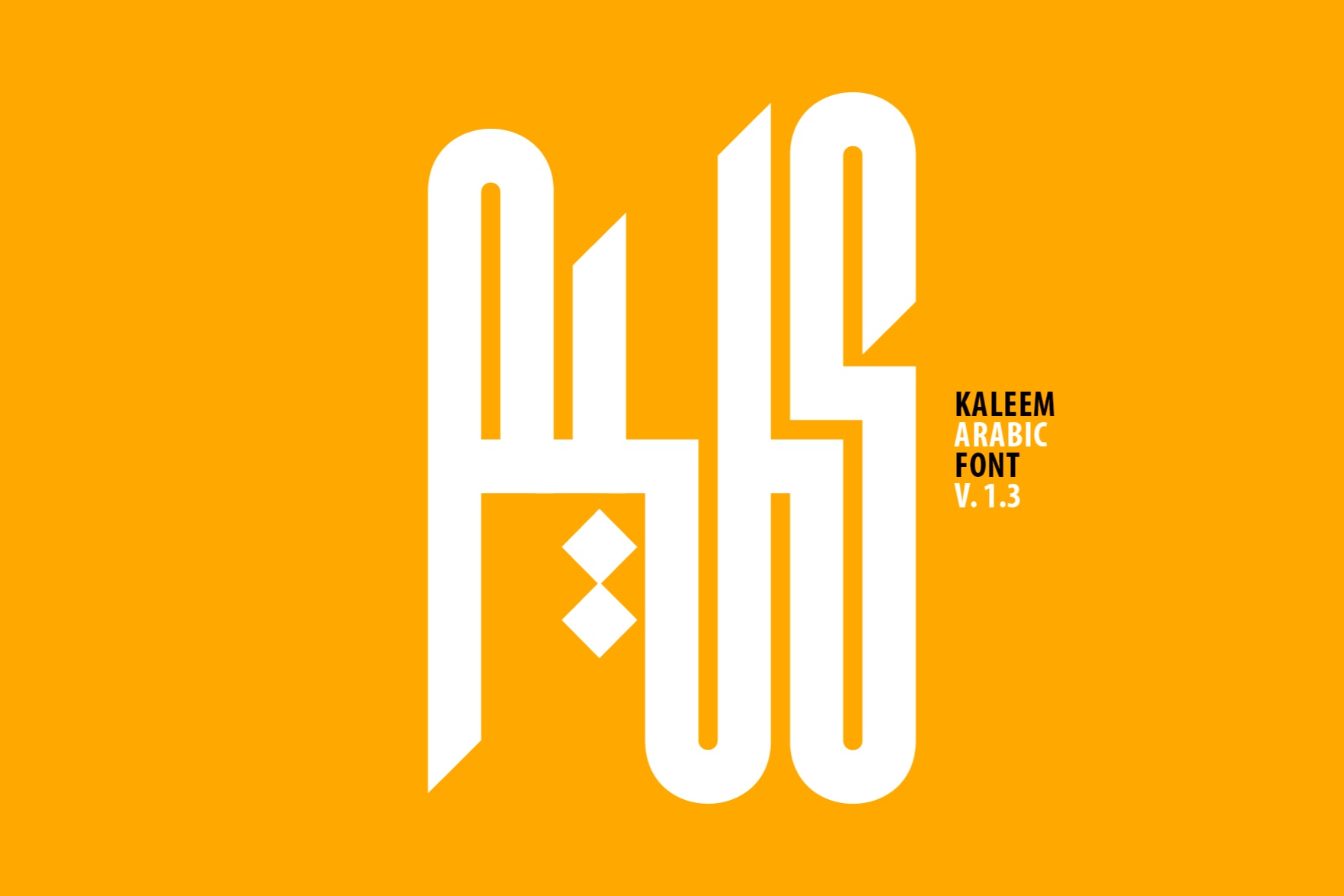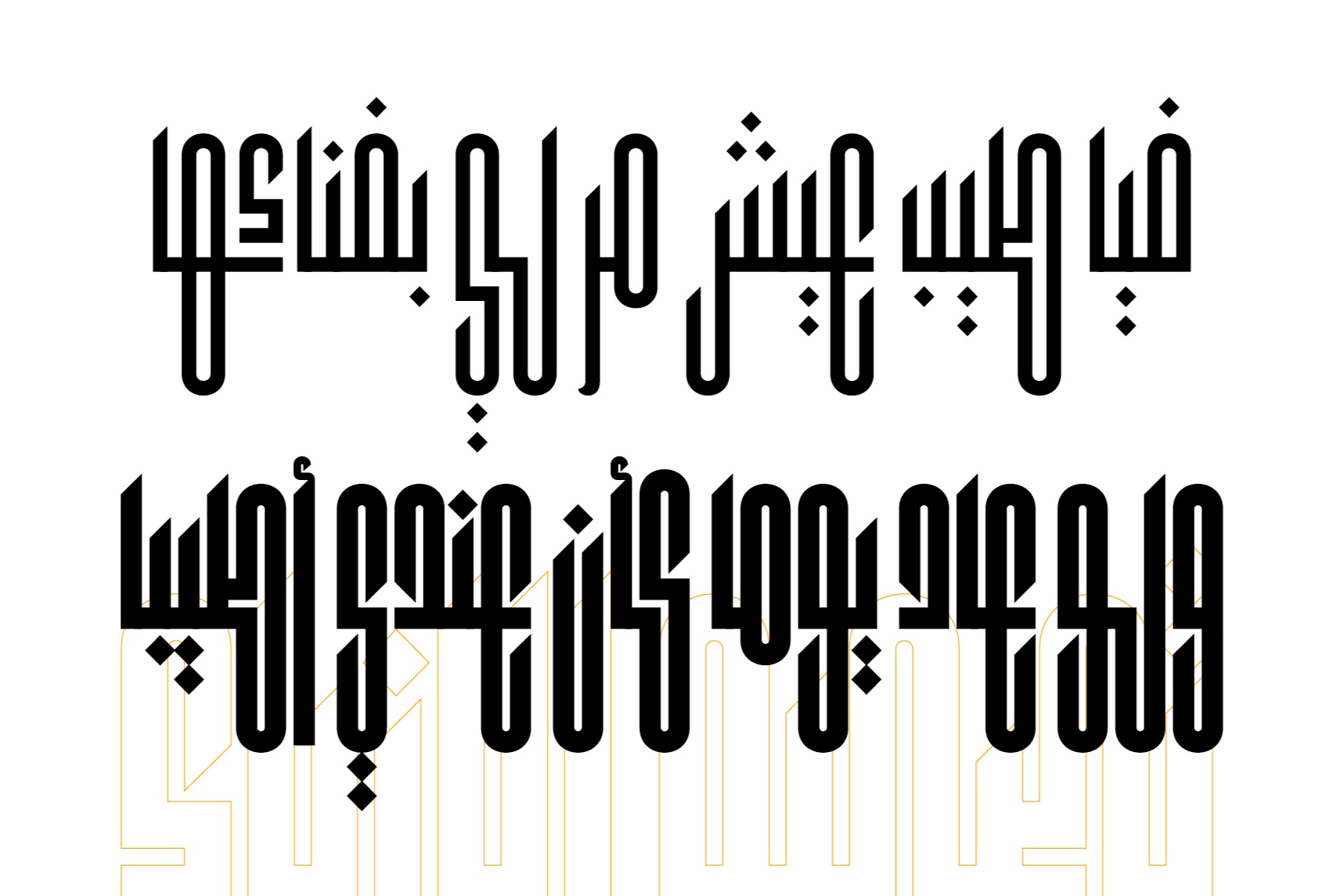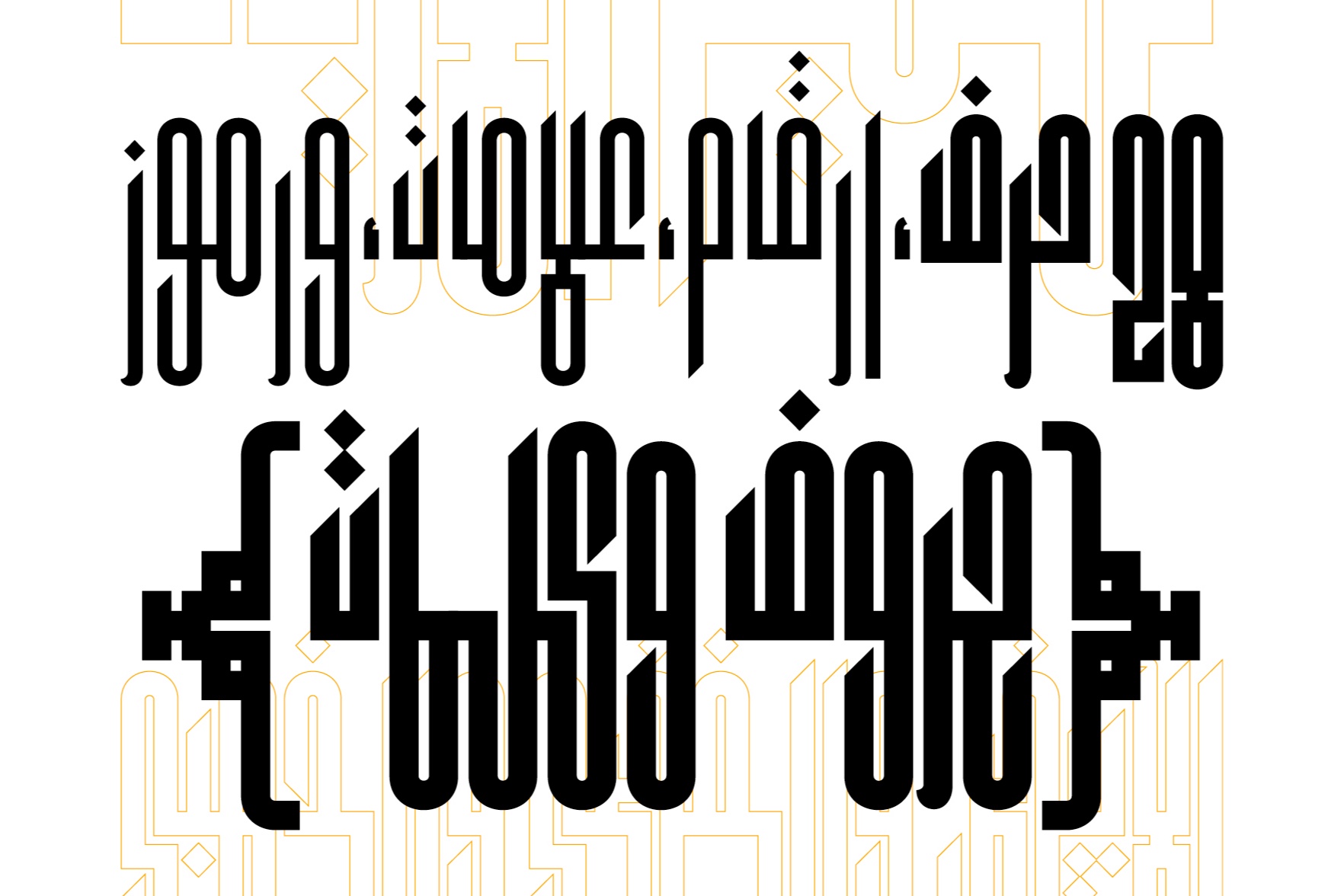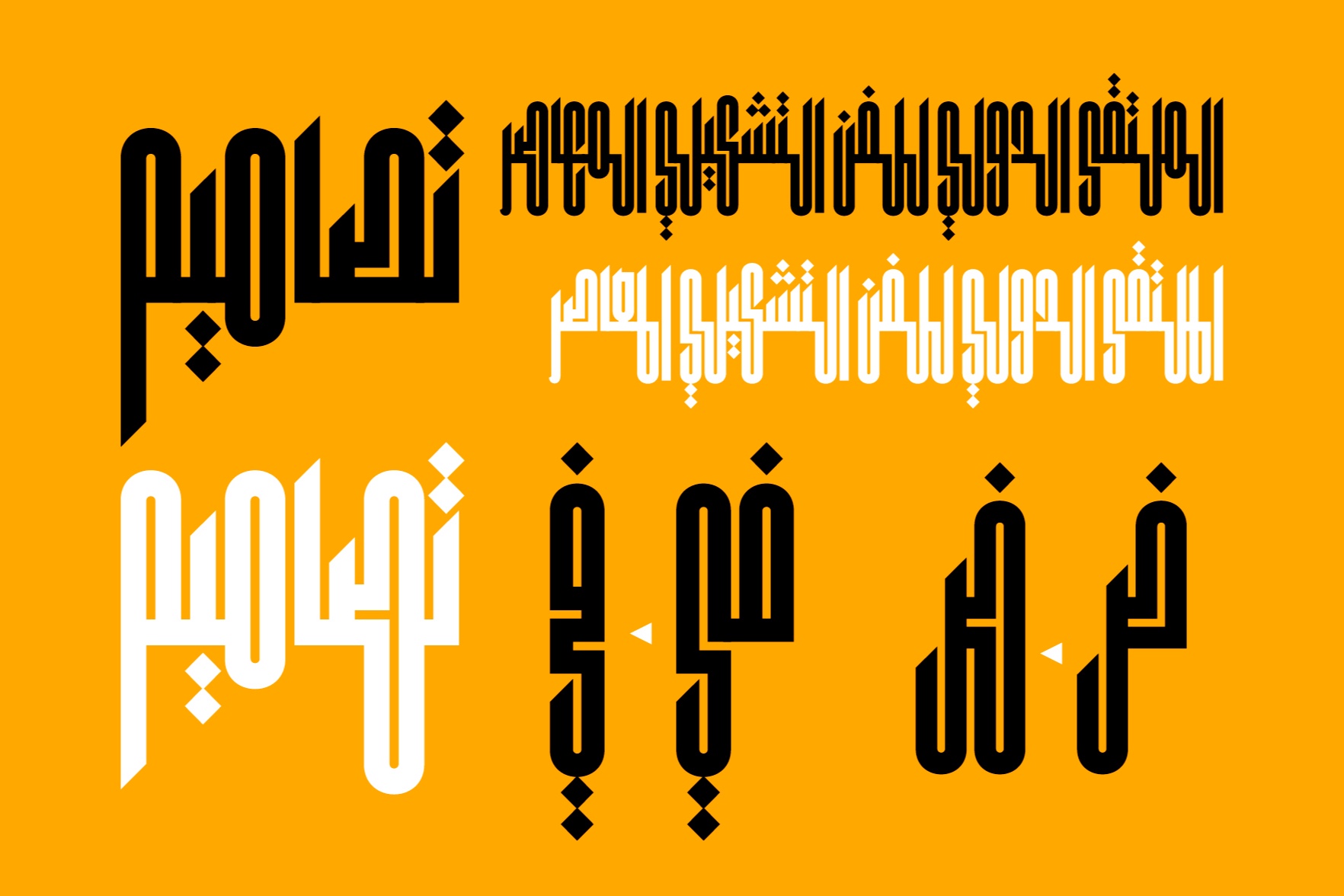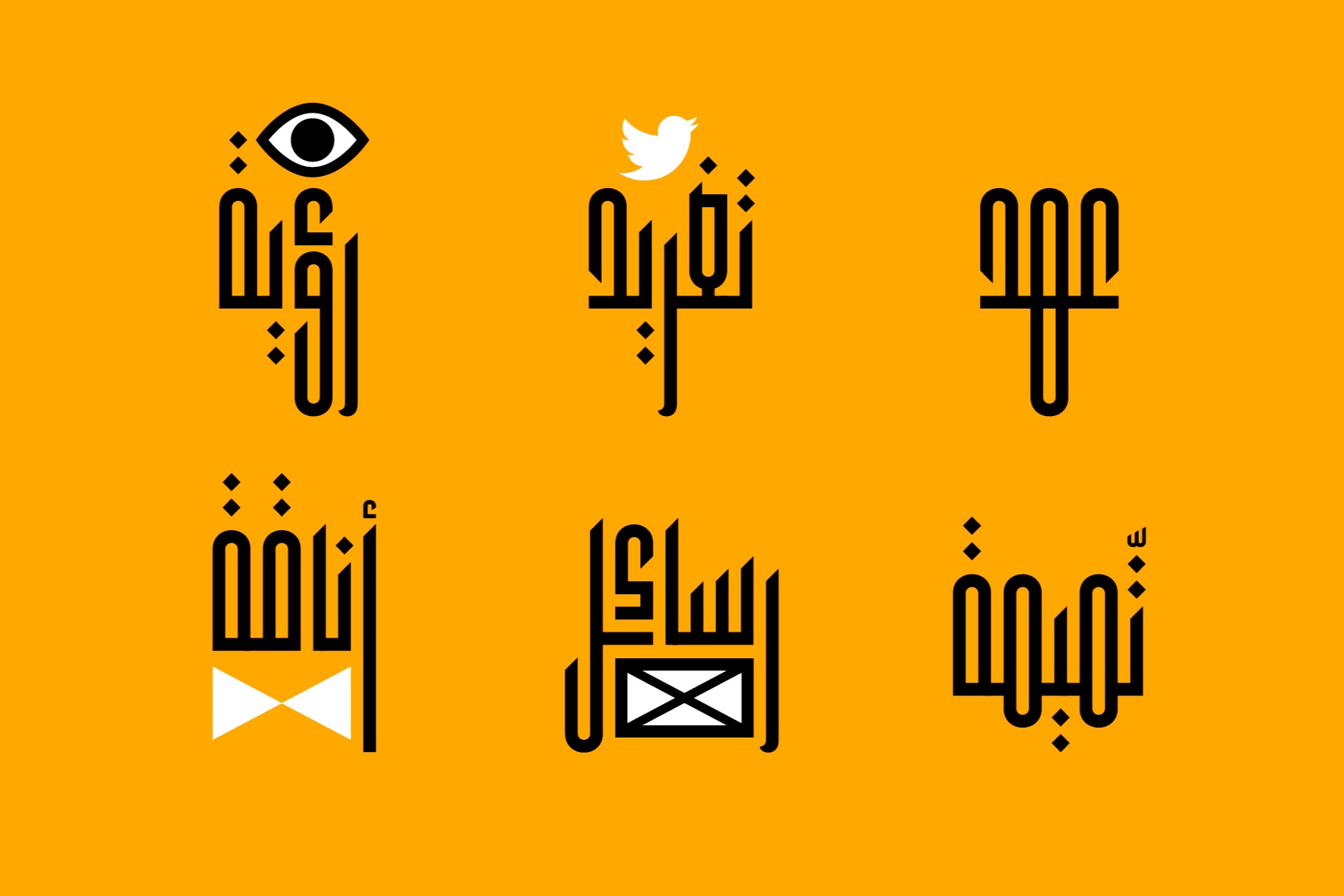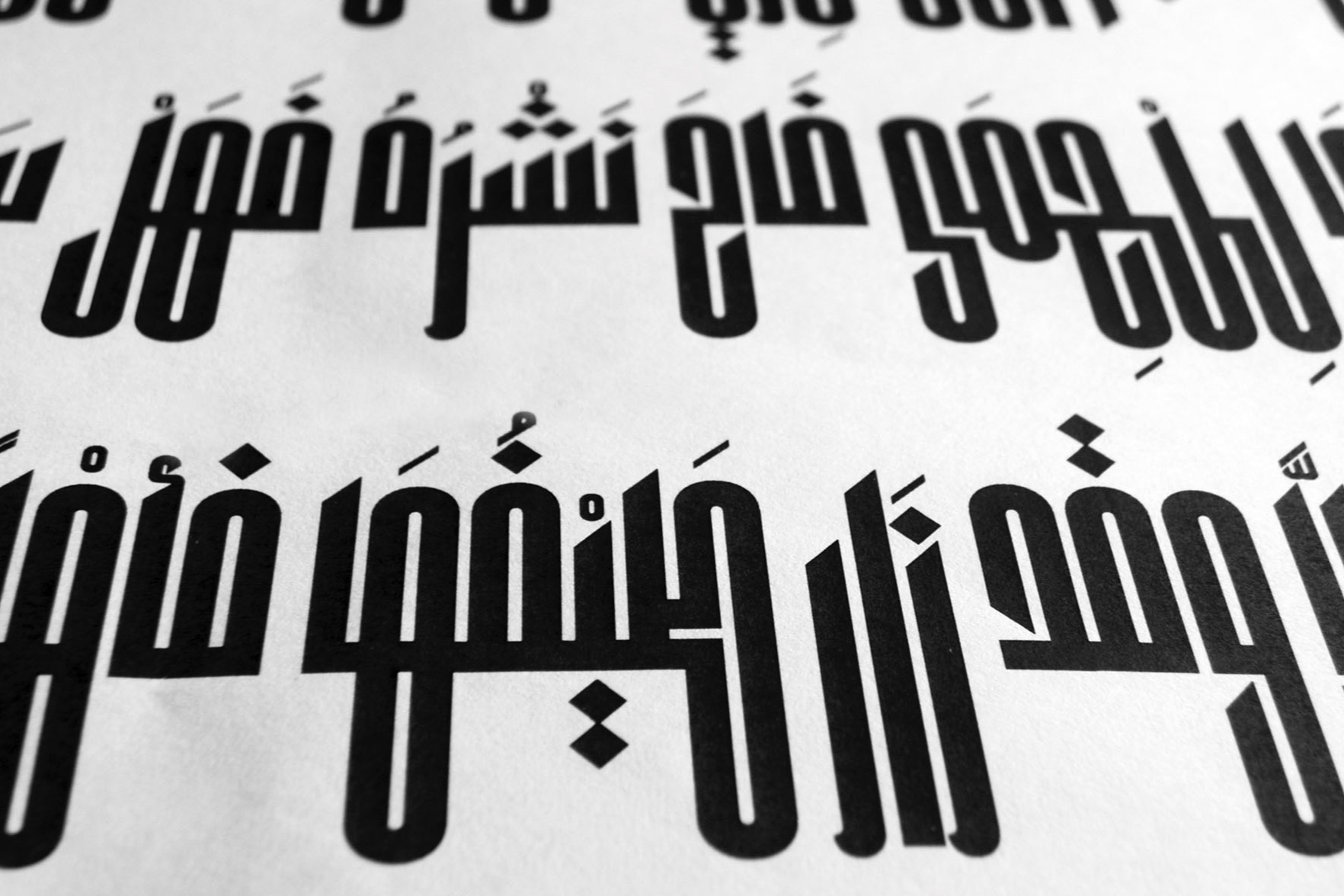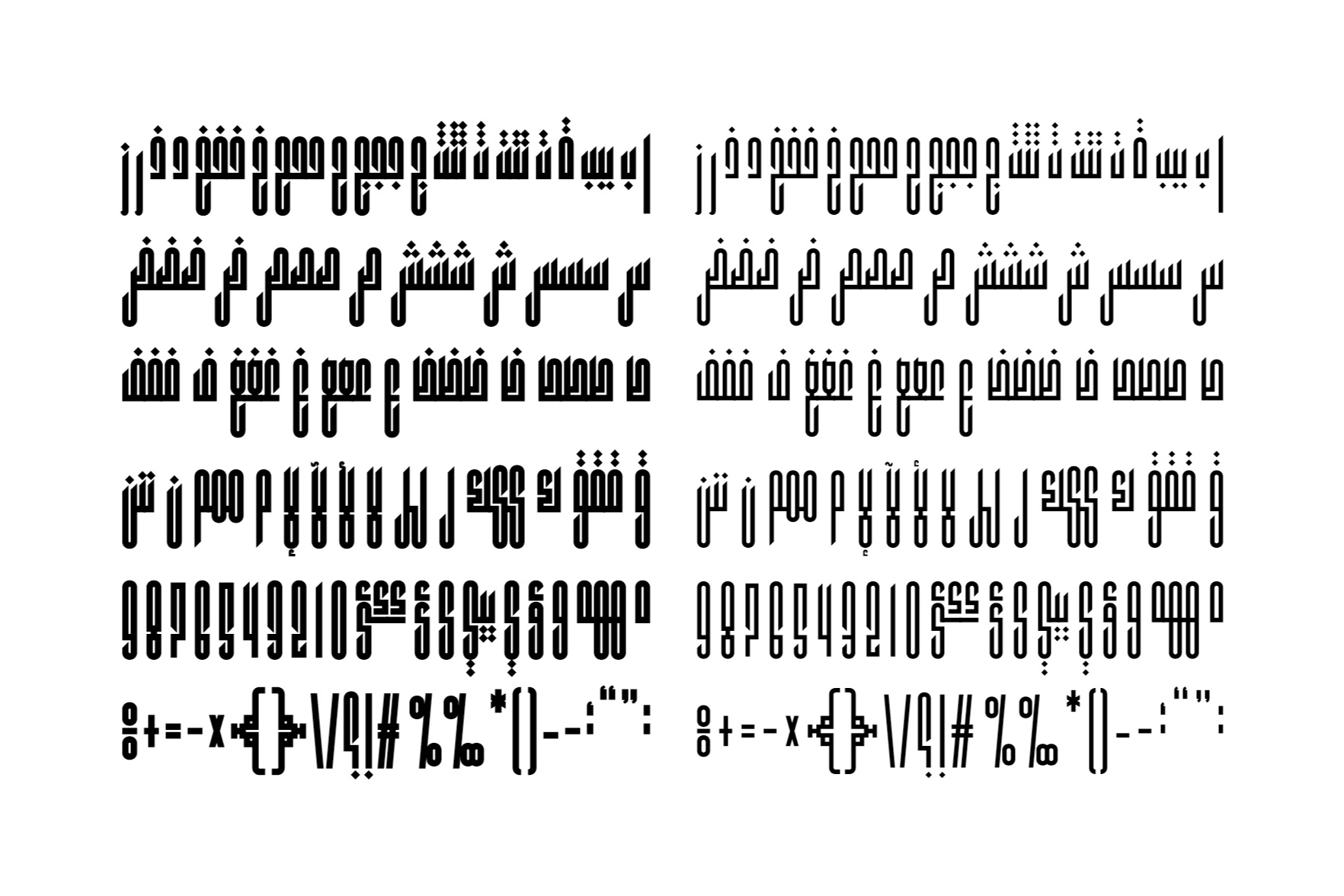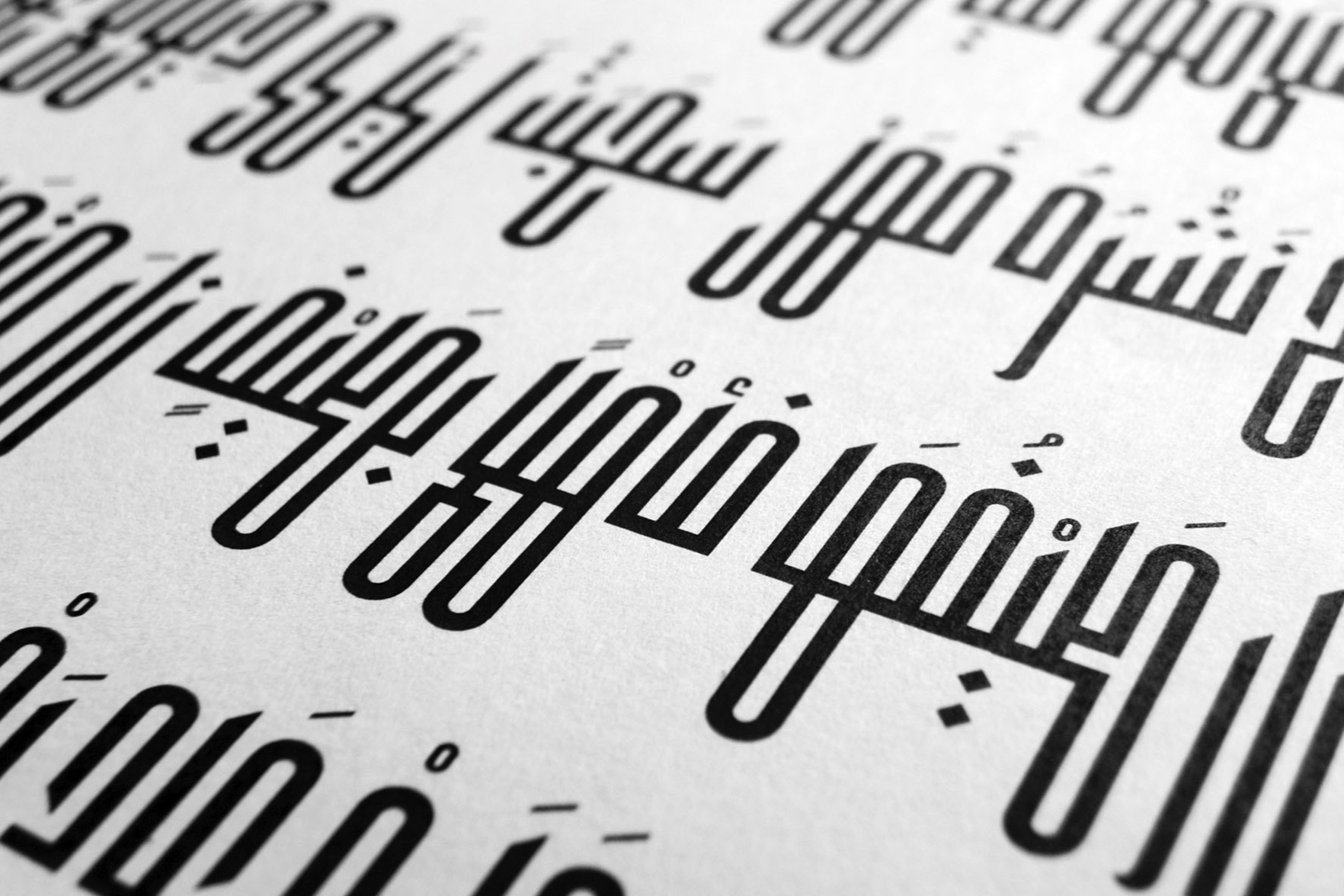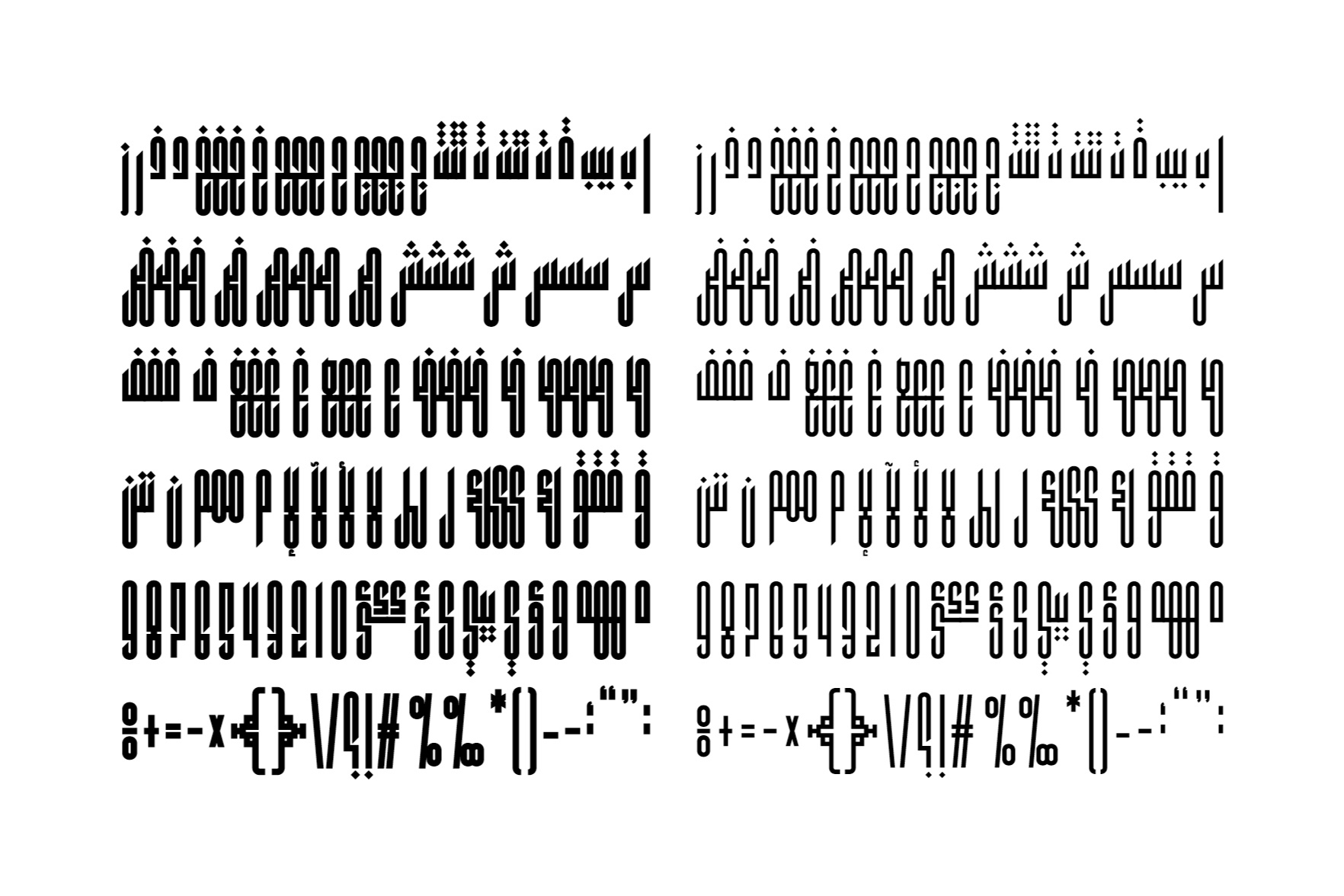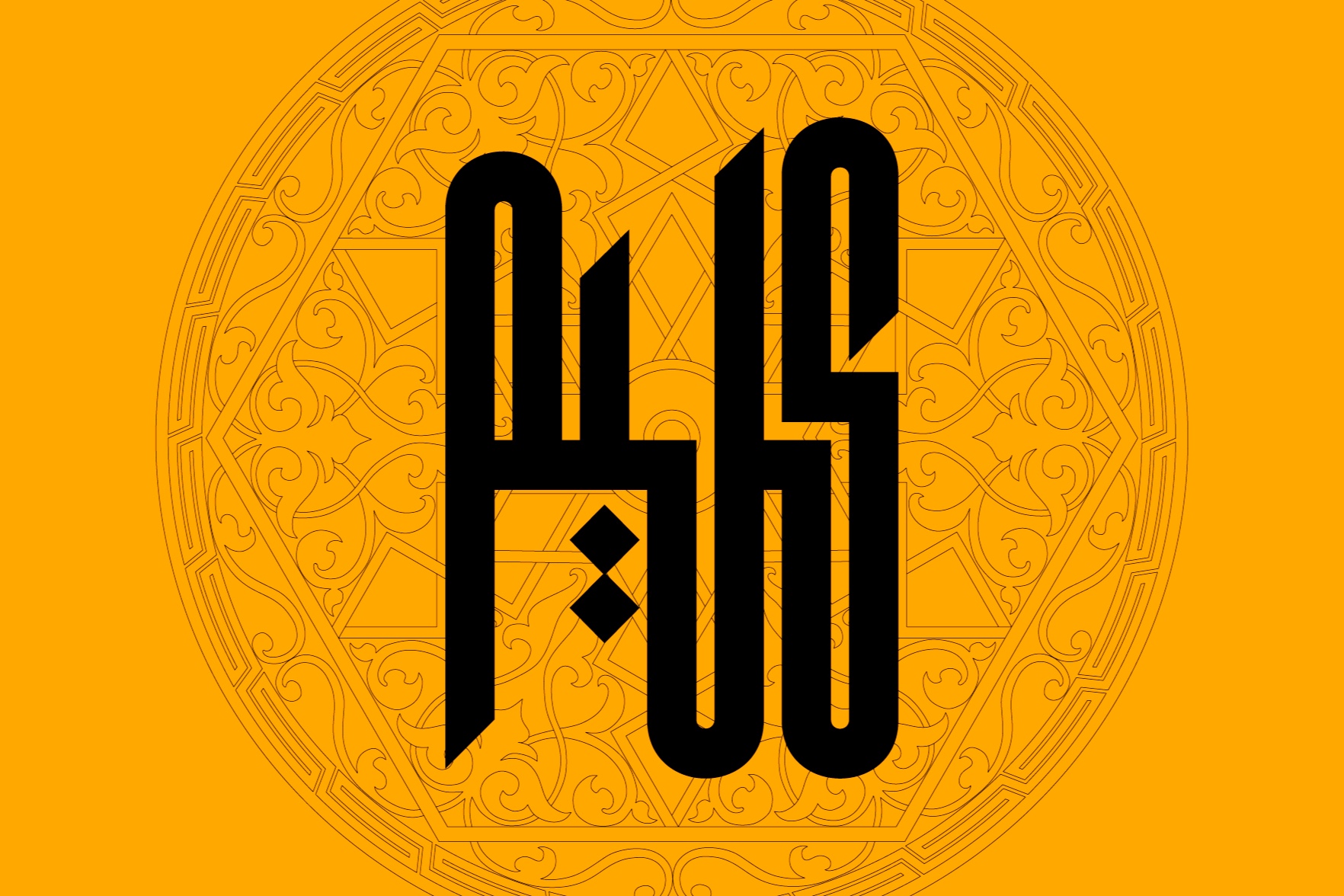
Kaleem is an Arabic display typeface. In Arabic, the term 'Kaleem' signifies a distinctive speaker, highlighting an individual with exceptional conversational abilities. This font showcases a distinctive writing style characterized by a robust geometric framework, making it ideal for wide array of creative projects. Kaleem is available in two weights: Regular and Bold.
Regular & Bold
300+ Characters